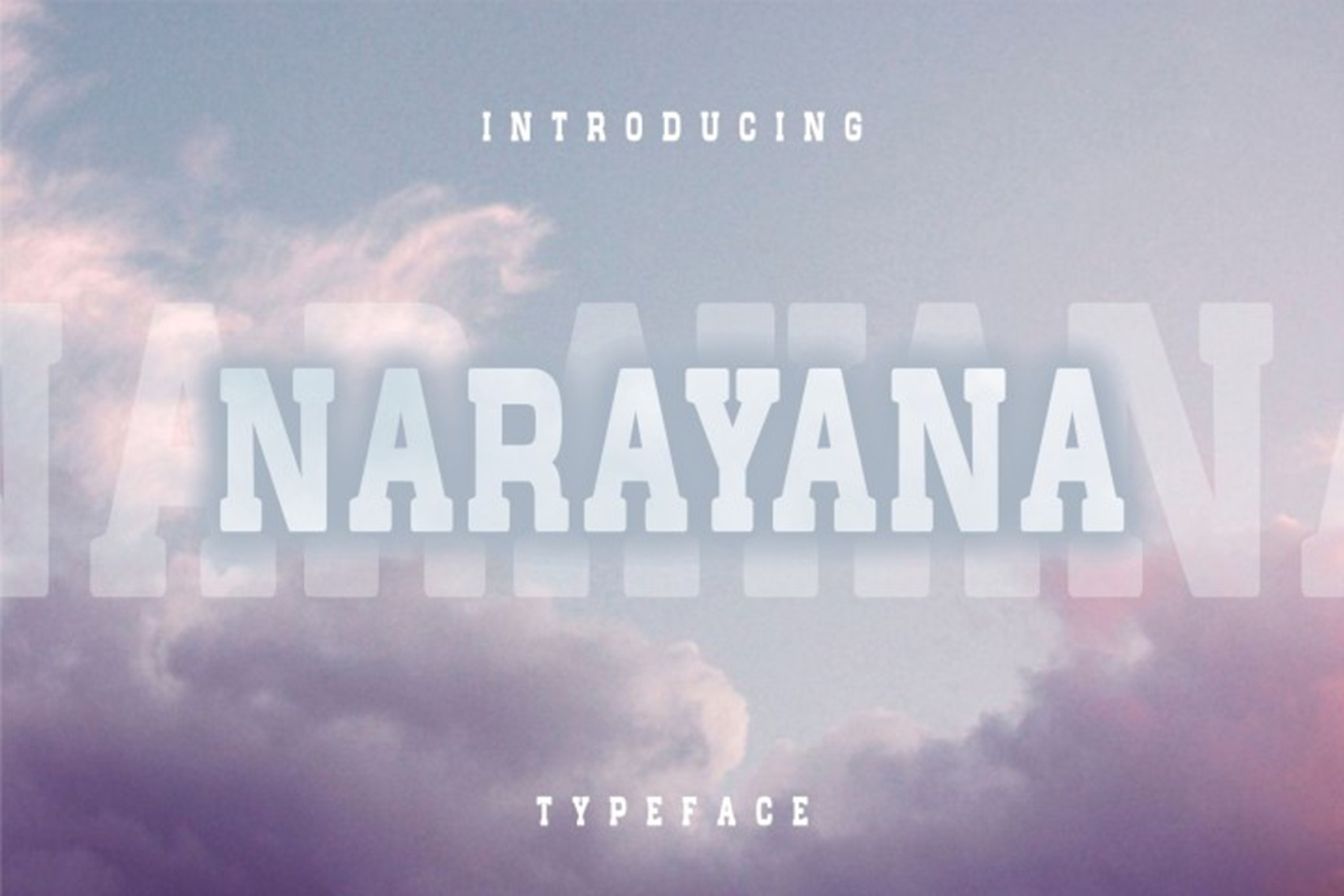
Narayana - Display typeface font
Narayana is the supreme absolute being as comes from its name the typeface represents the true perfect structure. Bold type letters have narrow and stylish design with great ground foundations on every letter.